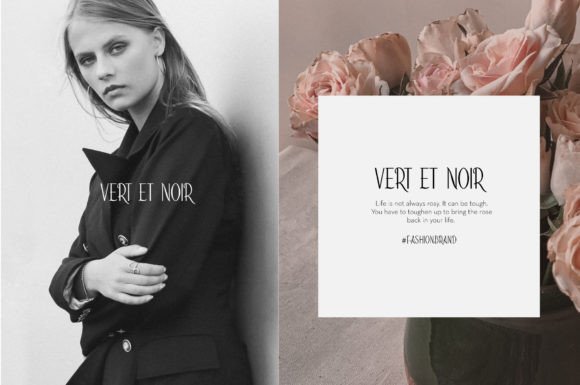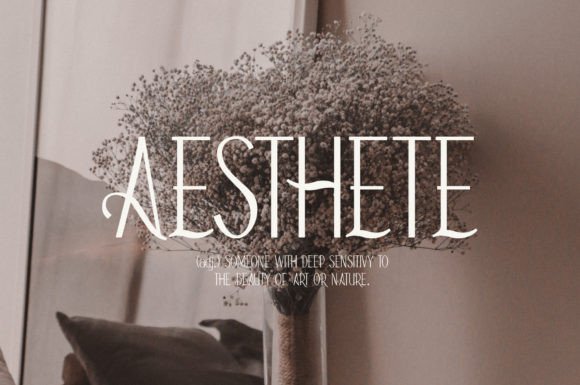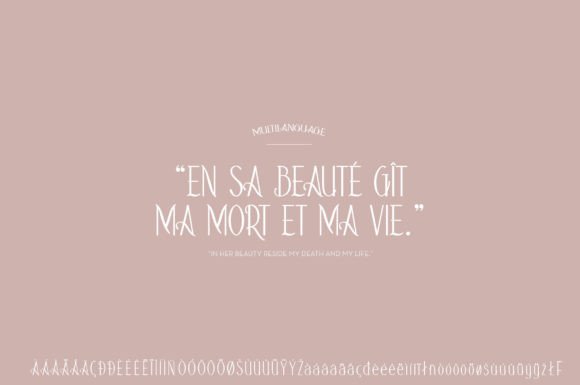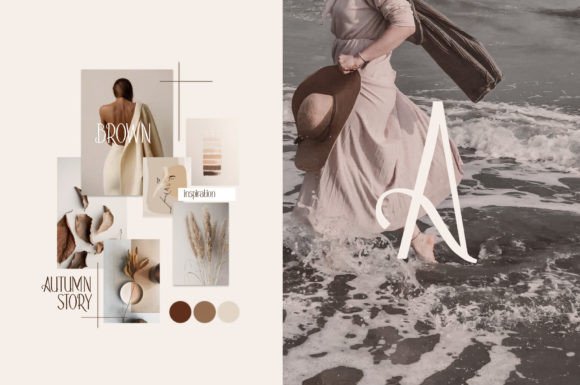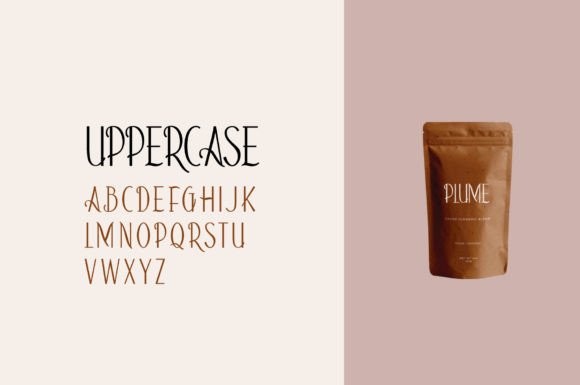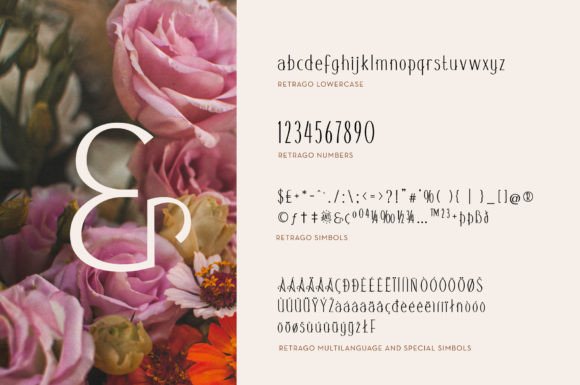
Introduction to Retrago Font
Retrago is a classy and modern sans-serif typeface.
This beautiful font will make your wedding invitations, presentations, logo designs, editorials, and packaging stand out Retrago is multilingual and comes with alternative glyphs.
Key Features of Retrago Font
Why Choose Retrago Font?
Retrago Font offers exceptional quality and versatility, making it a valuable addition to your design toolkit. Whether you’re creating for personal projects or commercial use, Retrago Font delivers professional results.